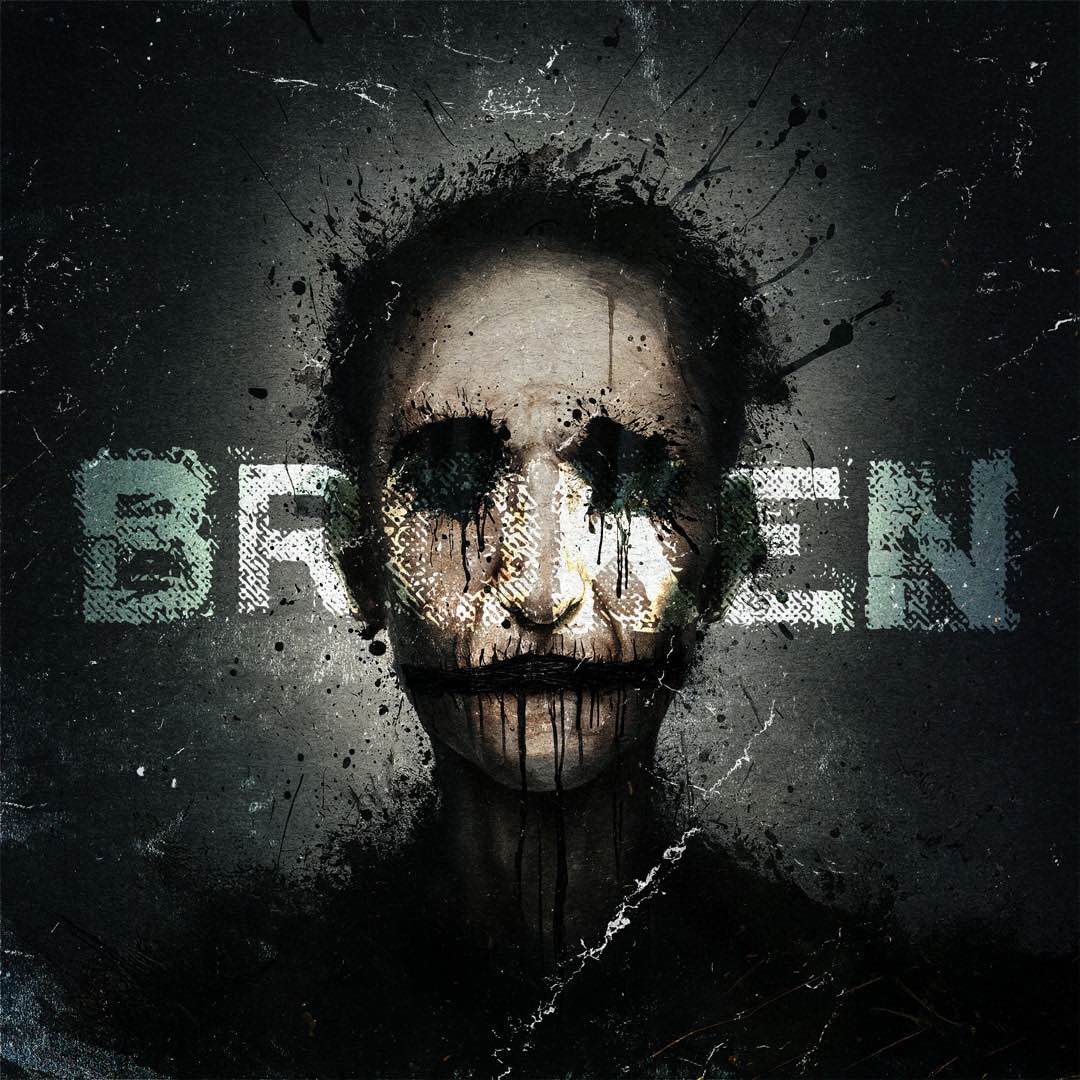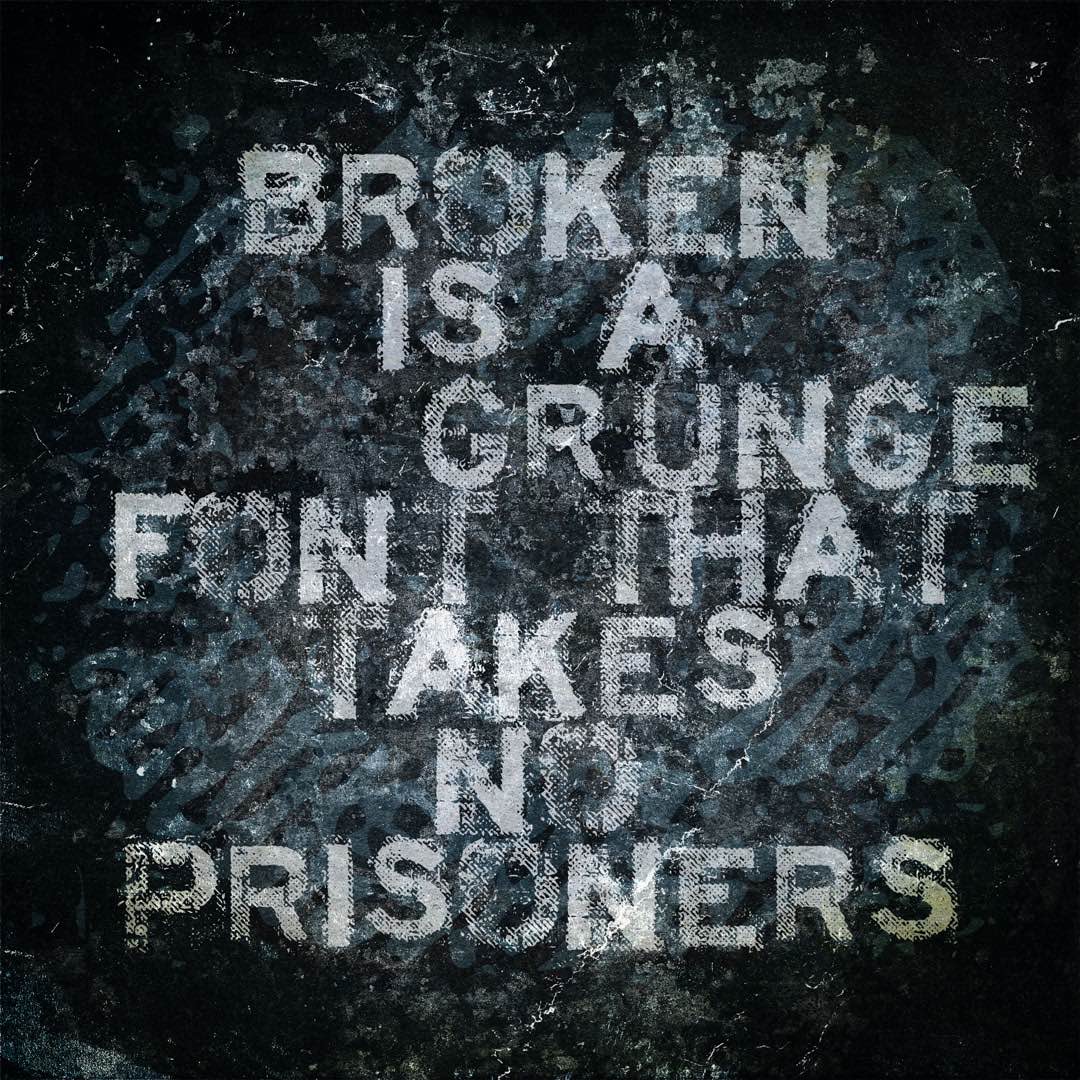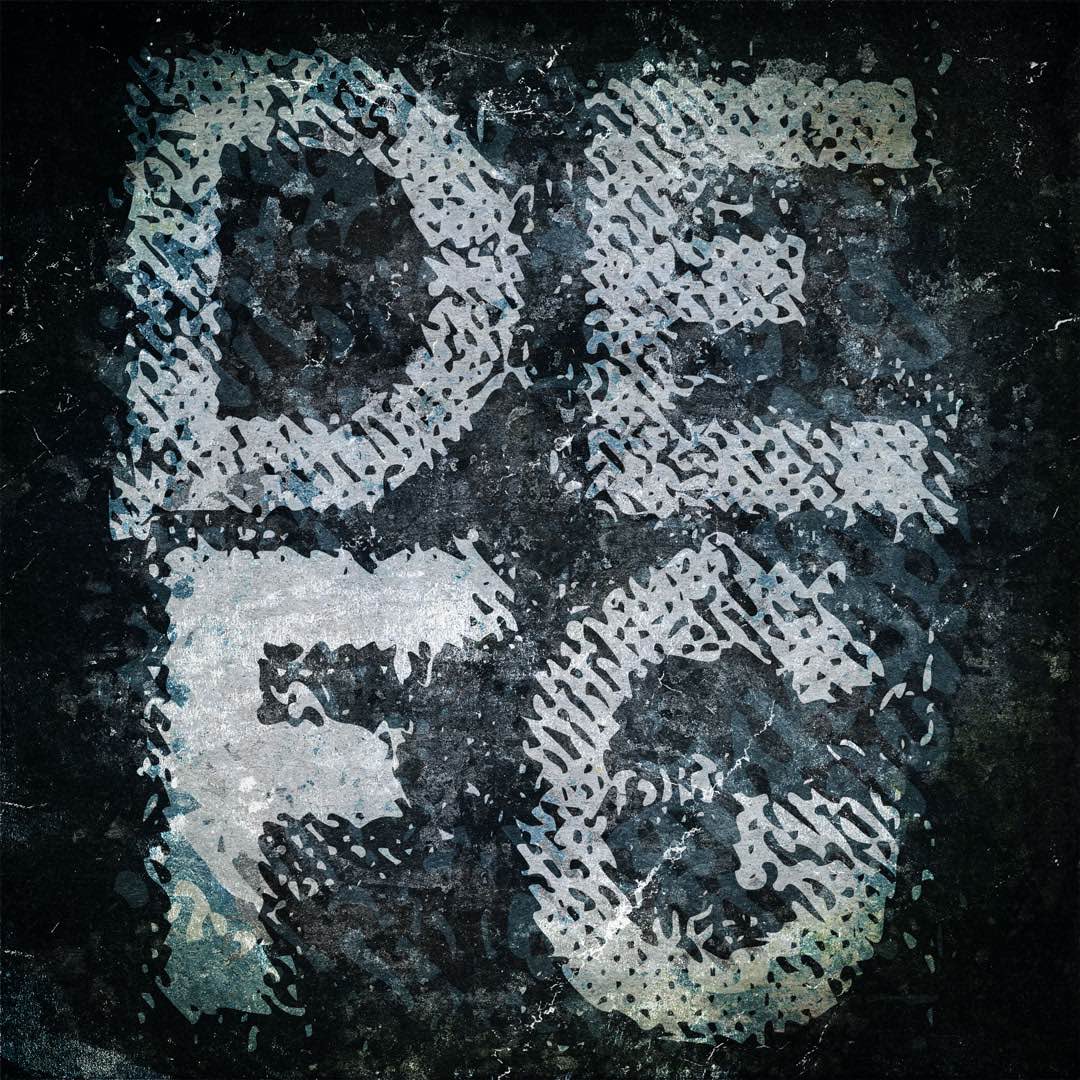
Broken
Broken is the font equivalent of a corrupted hard drive humming in a basement rave. With its fractured letterforms and techno-grunge attitude, this display typeface feels like it survived a data breach and came back stronger, and glitchier. Ideal for brutal visuals, cyberpunk branding, and any design that wants to look just a little bit hacked, Broken turns digital decay into a design feature.